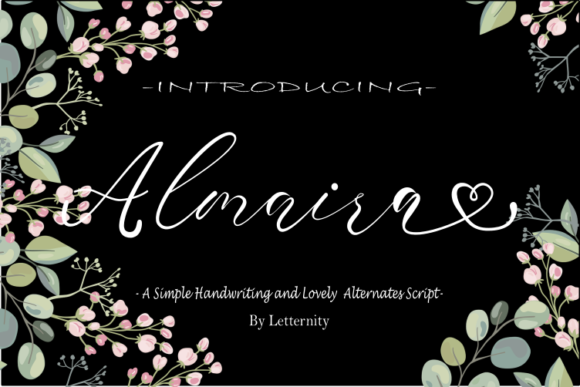
Step into the enchanting world of Almaira, a script font that whispers romance and exudes sweetness. Its characters dance gracefully along the baseline, bringing a touch of whimsical magic to every creation.
Picture your gift cards adorned with Almaira's elegant curves. The strokes flow with a delicate grace, carrying your heartfelt messages with a luxurious sparkle. Create invitations that evoke a sense of timeless sophistication, where each word carries the weight of a thousand cherished memories.
Almaira is your gateway to a realm of limitless possibilities. Unleash your creativity and paint the town red with stunning logos, breathtaking branding, and captivating social media posts. This font is your secret weapon, empowering you to make a statement that will resonate with hearts and minds alike.
With Almaira, you're not just downloading a font; you're inviting a muse into your design studio. Its versatility knows no bounds, effortlessly adapting to any project that craves a touch of heartfelt charm. From whimsical wedding invitations to enchanting social media campaigns, Almaira has the uncanny ability to transform ordinary into extraordinary.
Embrace the allure of Almaira and let your imagination soar. Its PUA-encoded nature grants you effortless access to a treasure trove of glyphs and ligatures, empowering you to craft designs that dance with creativity and captivate all who lay eyes upon them.
Indulge in the sweet embrace of Almaira and experience the transformative power of a font that speaks to the heart. Let its romantic charm inspire your designs, ignite your creativity, and create works of art that will enchant and endure.